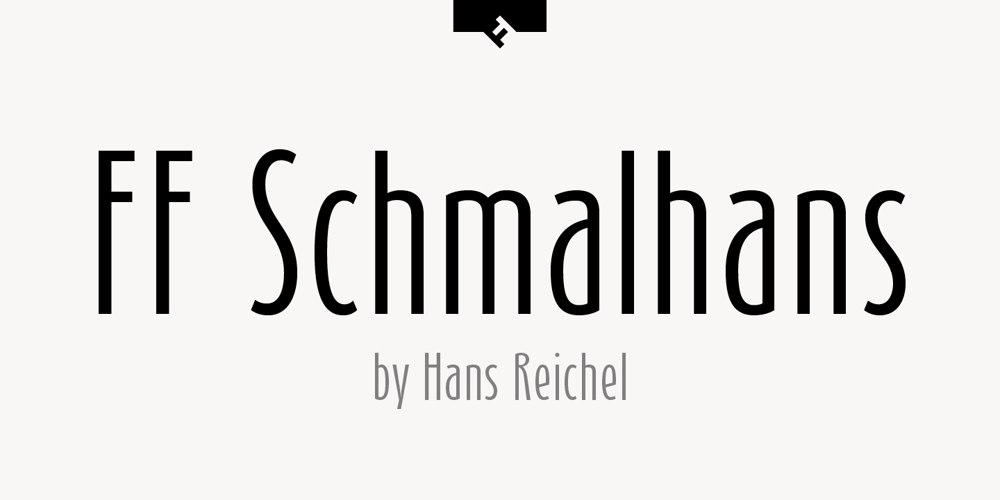
FF Schmalhans
FF Schmalhans Font Family was designed by Hans Reichel and published by FontFont. FF Schmalhans contains 6 styles and family package options. German type designer Hans Reichel created this sans FontFont in 1996. The family has 6 weights, ranging from Light to Black and is ideally suited for advertising and packaging, book text, film and tv, editorial and publishing as well as small text. FF Schmalhans provides advanced typographical support with features such as ligatures, alternate characters, case-sensitive forms, fractions, and super- and subscript characters. It comes with a complete range of figure set options – oldstyle and lining figures, each in tabular and proportional widths.